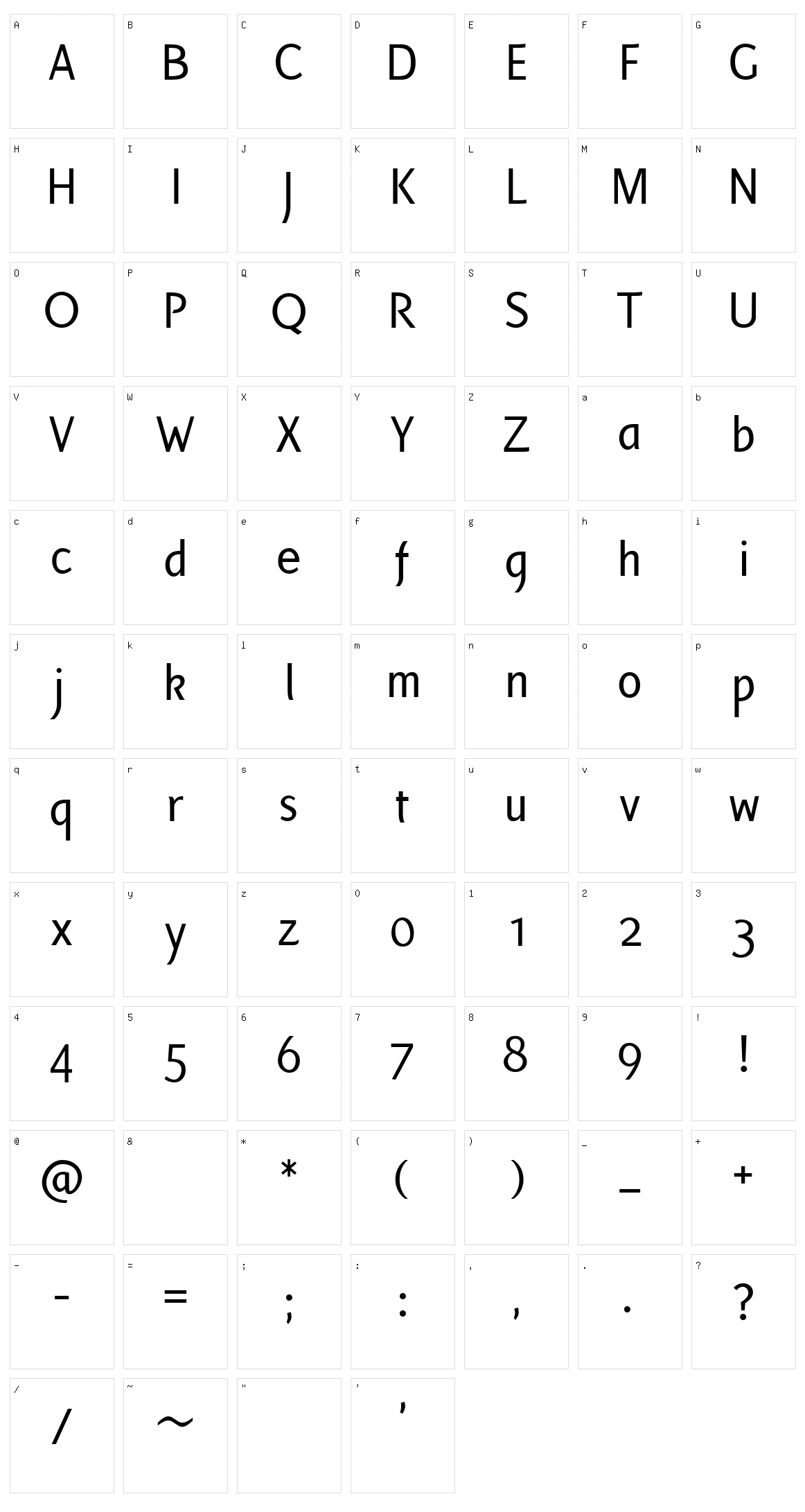
The free font Laser is carefully designed by Stefan Stefan, showcasing a thoughtful balance of creativity and usability and falls under the Sans serif font style. When you download the ZIP file, it contains only 17.21 KB of font files, making it lightweight and quick to download. Please review the license details below to understand permitted usage and distribution rights. If license information is not available, we recommend using this font for personal projects only or contacting the author directly for commercial usage permissions.